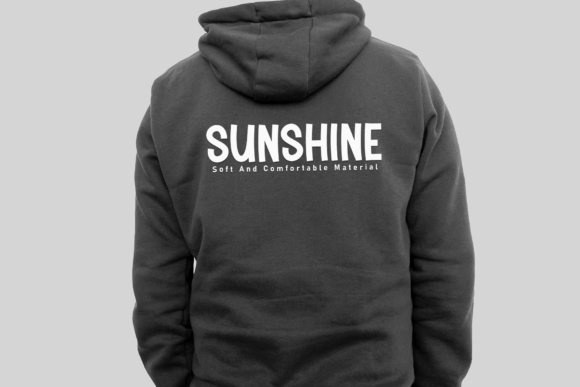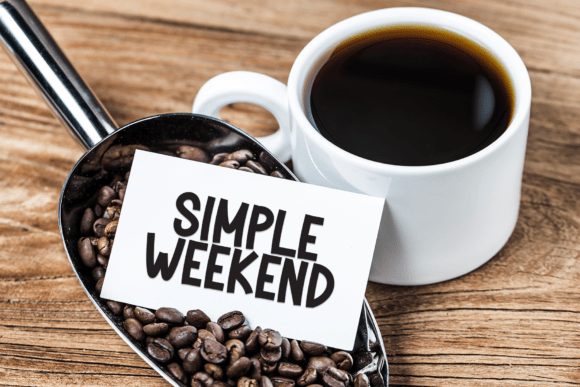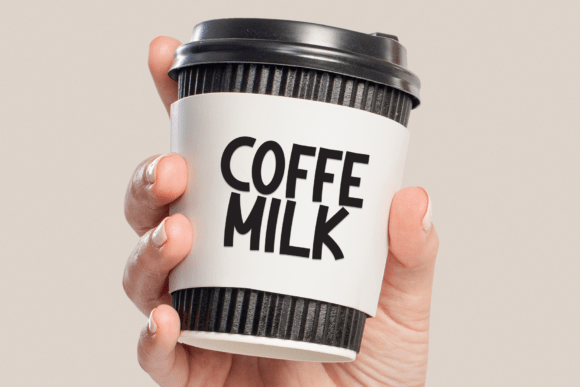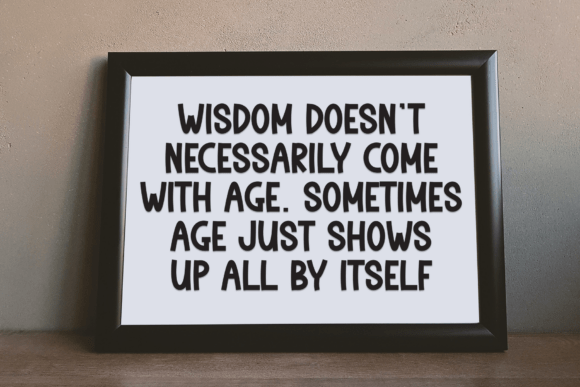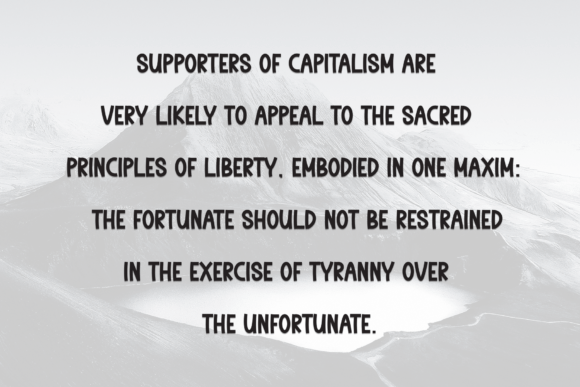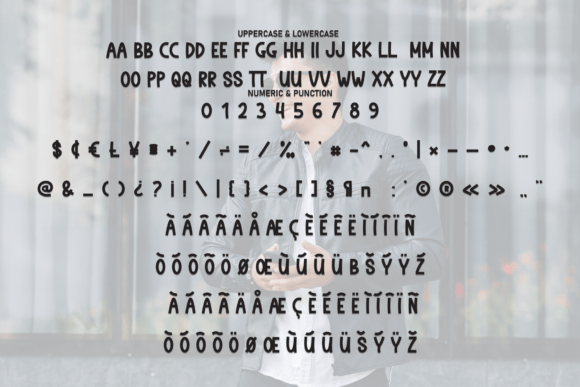
Introducing Handsome Font: The Perfect Blend of Simplicity and Friendliness
In the world of typography, a font can make or break a design. It can elevate a brand’s identity, convey a message, and evoke emotions. If you’re a designer or crafter looking for a font that combines simplicity with a friendly, approachable vibe, look no further than Handsome Font. This casual and neat display font is designed to capture the essence of modern handwritten typography with a polished finish, making it ideal for a wide range of design applications.
Clean Lines, Balanced Letterforms, and Subtle Rounded Edges
Handsome Font boasts clean lines, balanced letterforms, and subtle rounded edges that give it a unique and charming personality. The font’s design is carefully crafted to create a sense of harmony and balance, making it easy to read and visually appealing. The clean lines and balanced letterforms ensure that the font remains clear and legible, even at smaller sizes, while the subtle rounded edges add a touch of warmth and friendliness.
Modern Handwritten Typography with a Polished Finish
Handsome Font is inspired by modern handwritten typography, but with a polished finish that sets it apart from more traditional handwritten fonts. The font’s design is characterized by a sense of fluidity and movement, giving it a dynamic and energetic feel. At the same time, the polished finish ensures that the font remains professional and sophisticated, making it suitable for a wide range of design applications.
Ideal for Branding, Headlines, Packaging, and Digital Content
Handsome Font is a versatile font that can be used in a variety of design applications, including branding, headlines, packaging, and digital content. Its clean and simple design makes it easy to pair with other fonts, while its friendly and approachable vibe ensures that it can help to create a strong emotional connection with your audience. Whether you’re designing a logo, creating a headline, or developing a brand identity, Handsome Font is a great choice.
Adding a Warm and Inviting Touch to Any Design
One of the key benefits of Handsome Font is its ability to add a warm and inviting touch to any design. The font’s friendly and approachable vibe makes it perfect for designs that need to convey a sense of approachability and warmth. Whether you’re designing a website, creating a brochure, or developing a brand identity, Handsome Font can help to create a sense of connection with your audience.
Crispy Structure and Versatile Style
Handsome Font has a crispy structure and versatile style that makes it easy to use in a wide range of design applications. The font’s clean lines and balanced letterforms ensure that it remains clear and legible, even at smaller sizes, while its subtle rounded edges add a touch of warmth and friendliness. The font’s versatile style also makes it easy to pair with other fonts, allowing you to create a unique and cohesive design.
Delivering Clarity and Charm in Equal Measure
Handsome Font is a font that delivers clarity and charm in equal measure. Its clean and simple design ensures that it remains clear and legible, even at smaller sizes, while its friendly and approachable vibe adds a touch of charm and personality to any design. Whether you’re designing a logo, creating a headline, or developing a brand identity, Handsome Font is a great choice.
In conclusion, Handsome Font is a casual and neat display font that combines simplicity with a friendly, approachable vibe. Its clean lines, balanced letterforms, and subtle rounded edges make it a unique and charming font that is ideal for a wide range of design applications. With its crispy structure and versatile style, Handsome Font delivers clarity and charm in equal measure, making it a great choice for designers and crafters looking for a font that can help to elevate their designs.
Key Features of Handsome Font
- Clean lines and balanced letterforms
- Subtle rounded edges for a friendly and approachable vibe
- Modern handwritten typography with a polished finish
- Ideal for branding, headlines, packaging, and digital content
- Versatile style that pairs well with other fonts
- Crispy structure for clarity and legibility